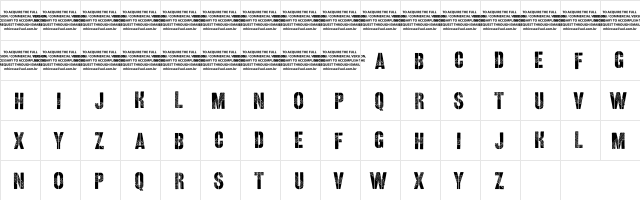
Querencia Army DEMO VERSION Regular
Design Context for Querencia Army DEMO VERSION Typeface
Querencia Army DEMO VERSION has the no-nonsense character of military stencilling and tactical signage, projecting authority and directness.
Designed for tactical branding, military-inspired apparel, action game UI, and utility-focused signage.
Font Pairing: Use alongside a condensed or geometric sans for supporting copy — keep the pairing bold, functional, and free of ornament.
Pro Tip: Use Querencia Army DEMO VERSION at medium-to-large sizes where its utilitarian structure can be appreciated — the character detail gets lost at small sizes.